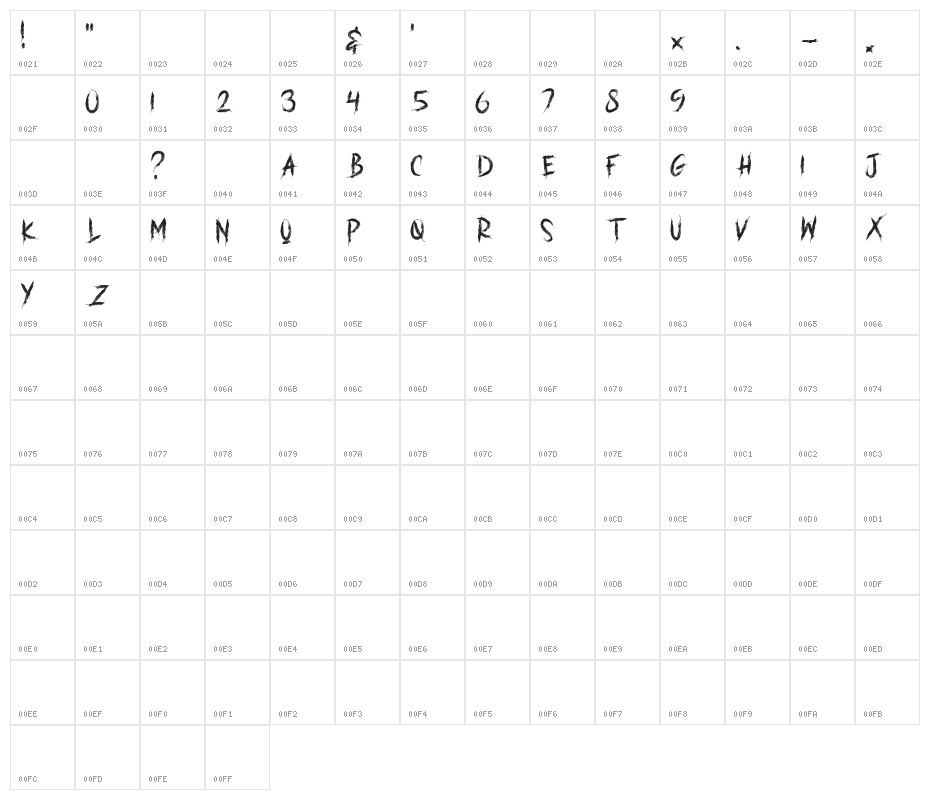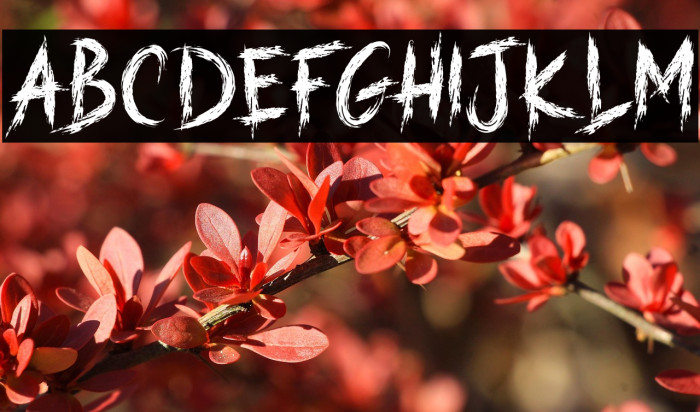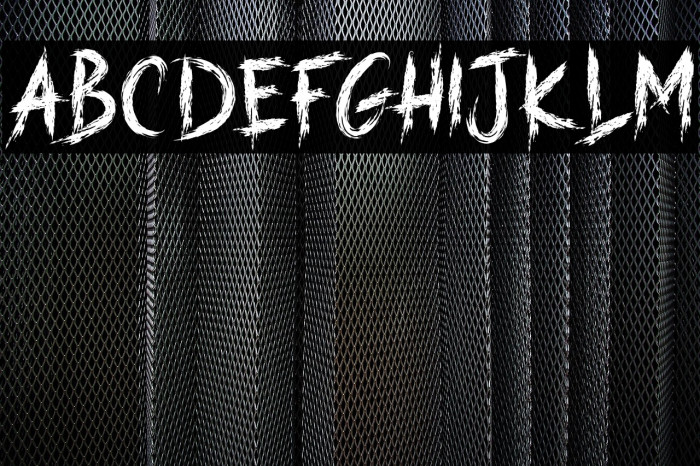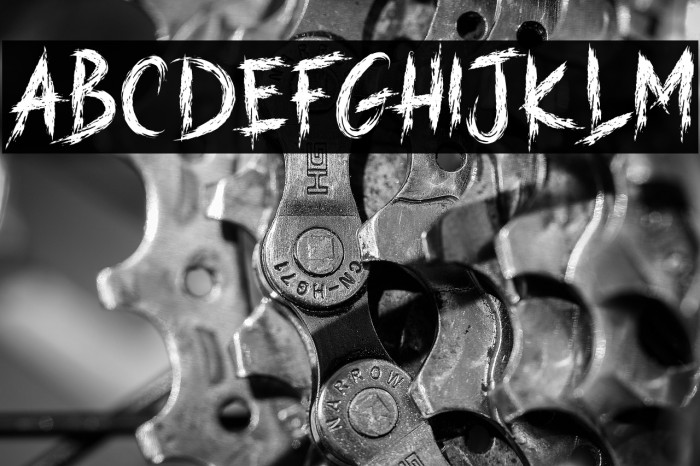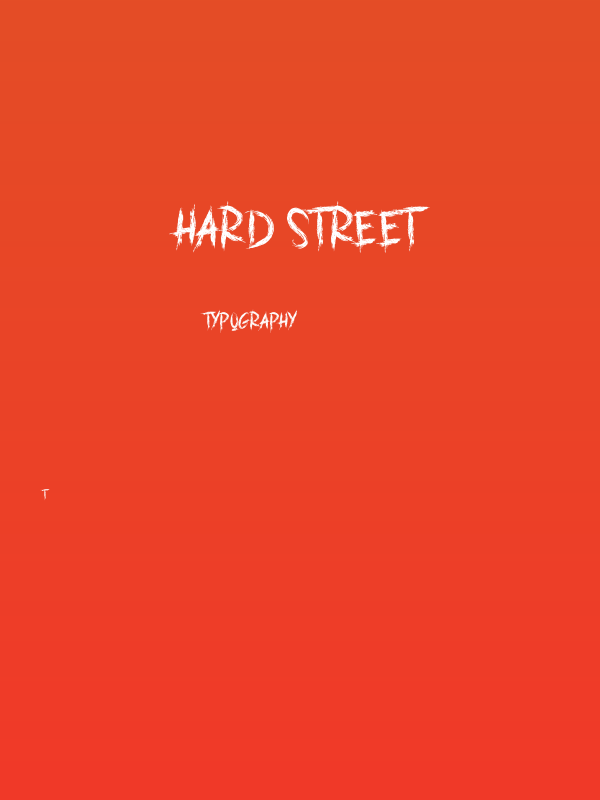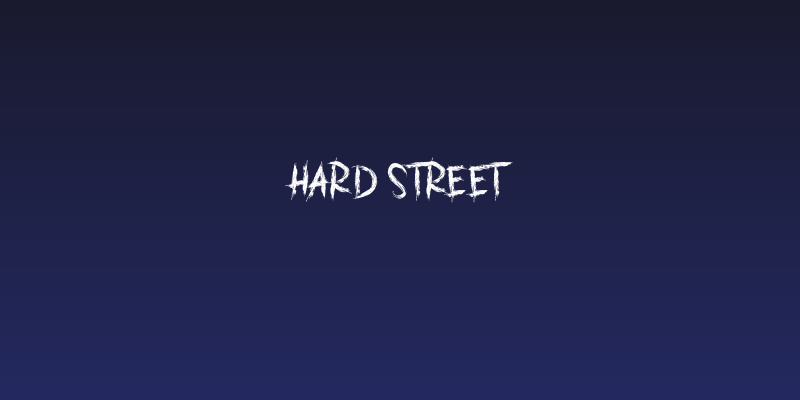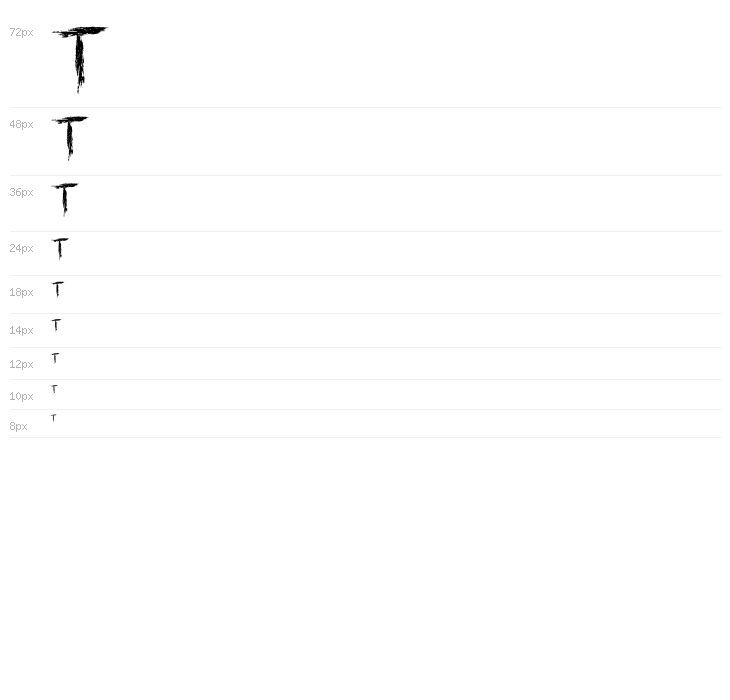
HARD STREET Font
HARD STREET Description
This font features a rugged, distressed appearance, reminiscent of brush strokes or graffiti. The characters are bold and dynamic, with uneven edges that give a sense of movement and energy. The uppercase letters are particularly striking, with a raw, hand-drawn quality that suggests a rebellious or urban aesthetic. The numerals and special characters maintain this edgy style, ensuring consistency across all glyphs. This font is designed to stand out, making it ideal for projects that require a bold statement or an artistic touch.
| Overall Style | Urban, Artistic, Edgy |
| Proposed Projects | Perfect for street art designs, music album covers, posters, and edgy branding projects. |